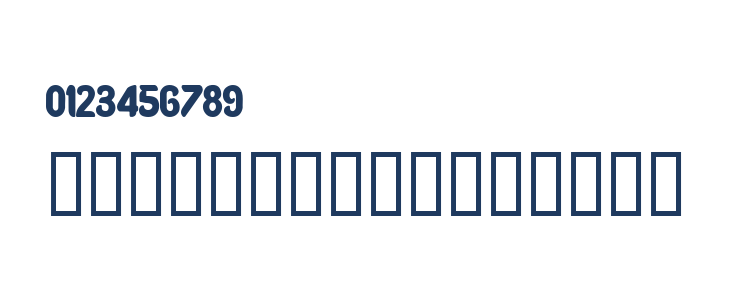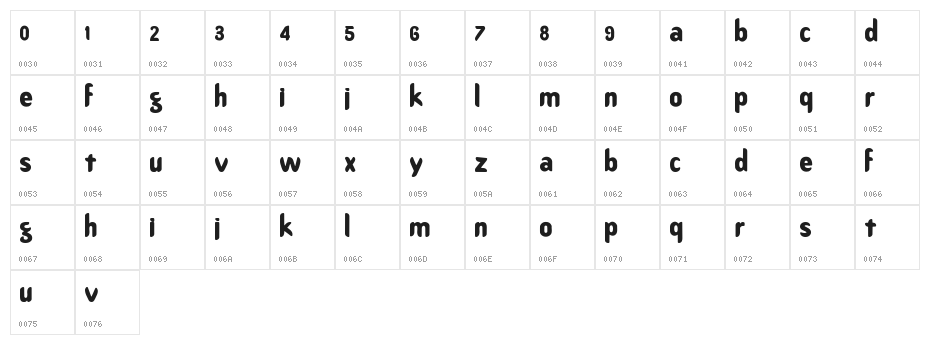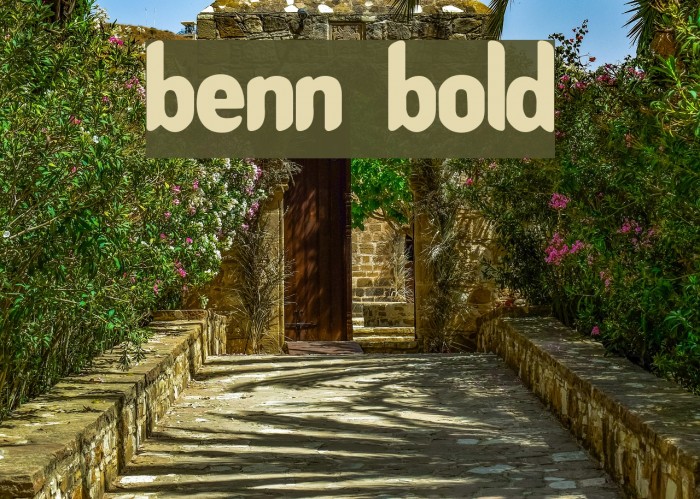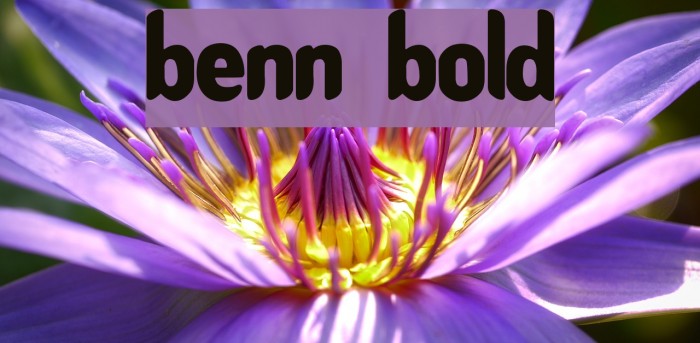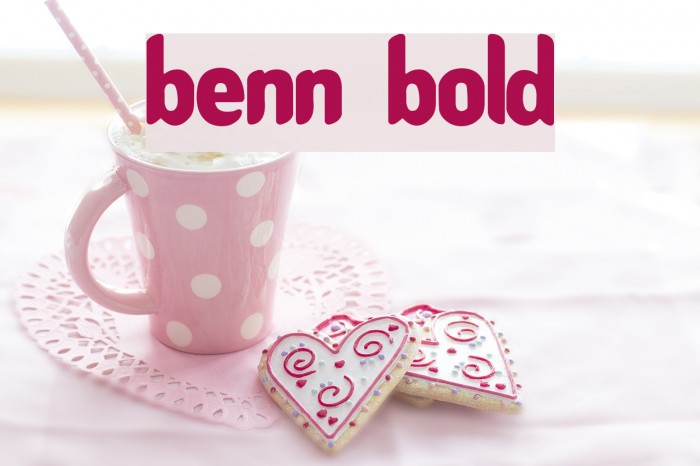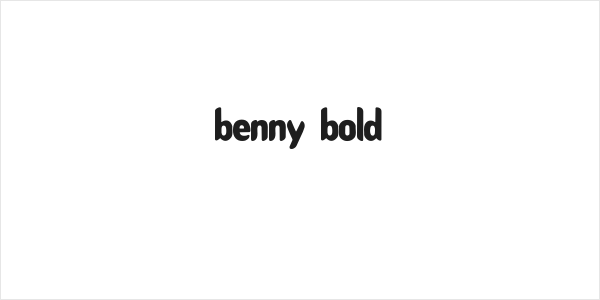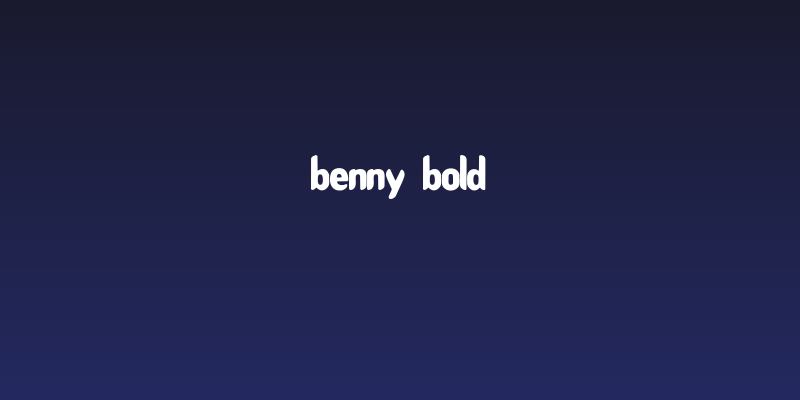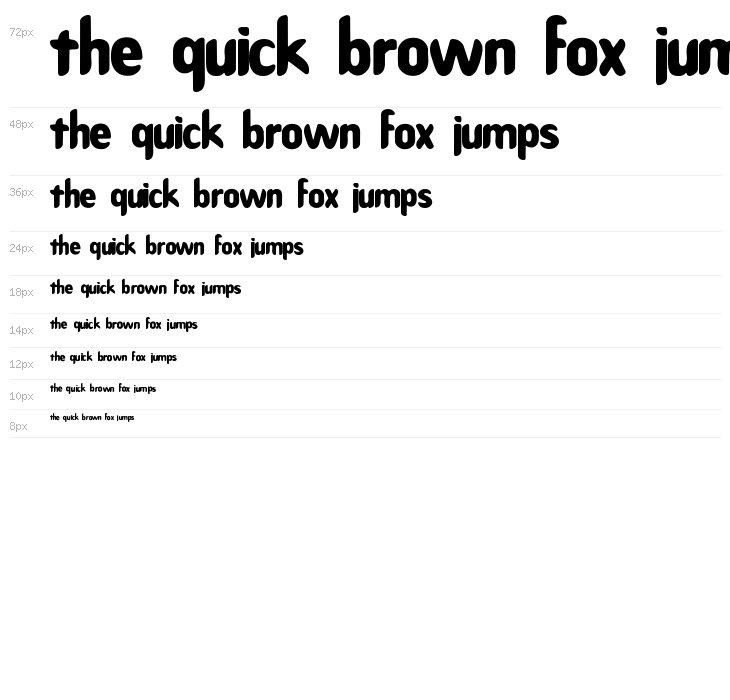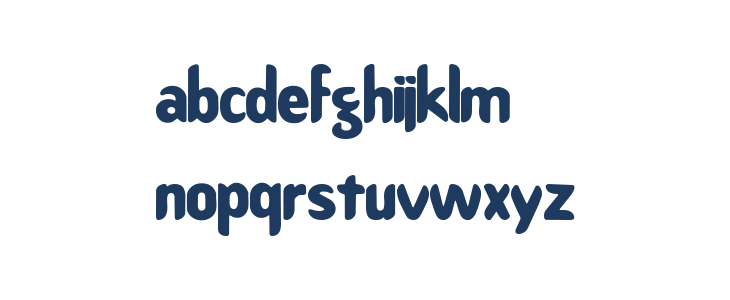
Benny Bold Font
Benny Bold Description
This font features a playful and bold design, characterized by its rounded and thick letterforms. The letters have a consistent weight, giving it a uniform appearance. The style is approachable and friendly, making it suitable for informal and creative projects. The numerals and special characters maintain the same bold and rounded aesthetic, ensuring consistency across all characters.
| Proposed Projects | Ideal for children's books, playful branding, casual invitations, and creative posters. |